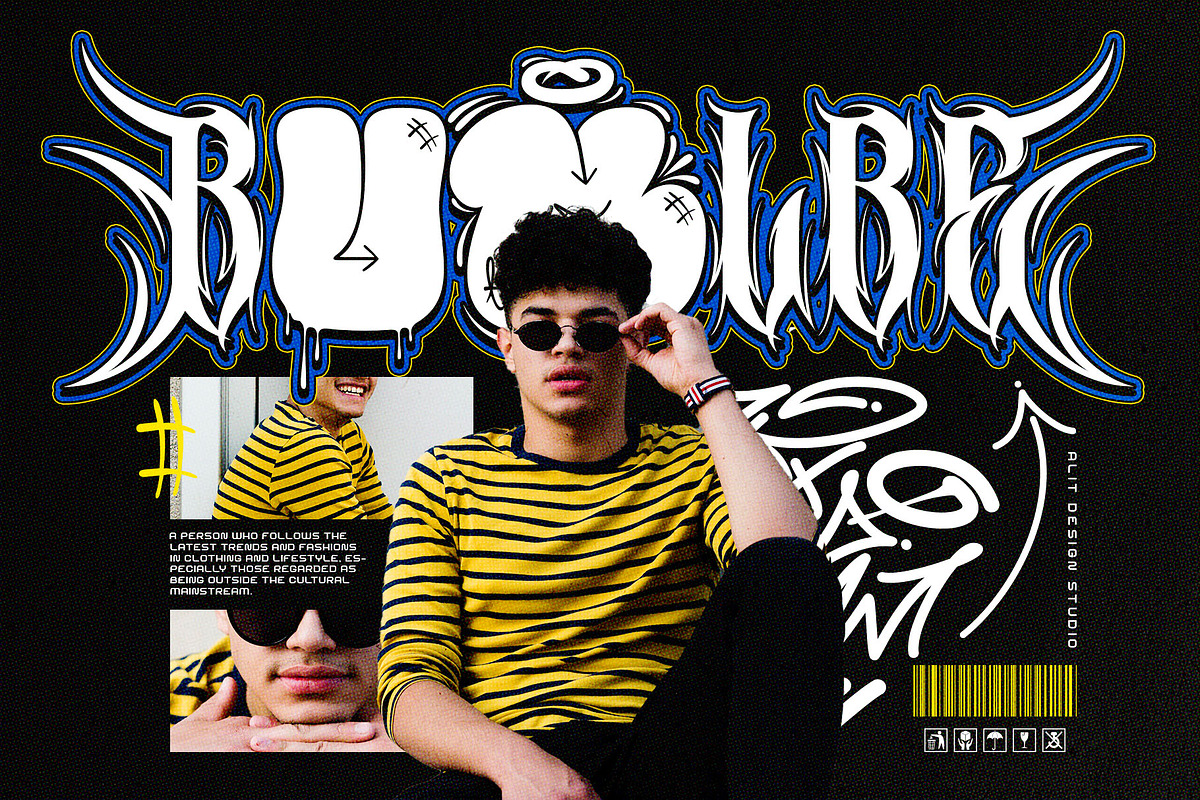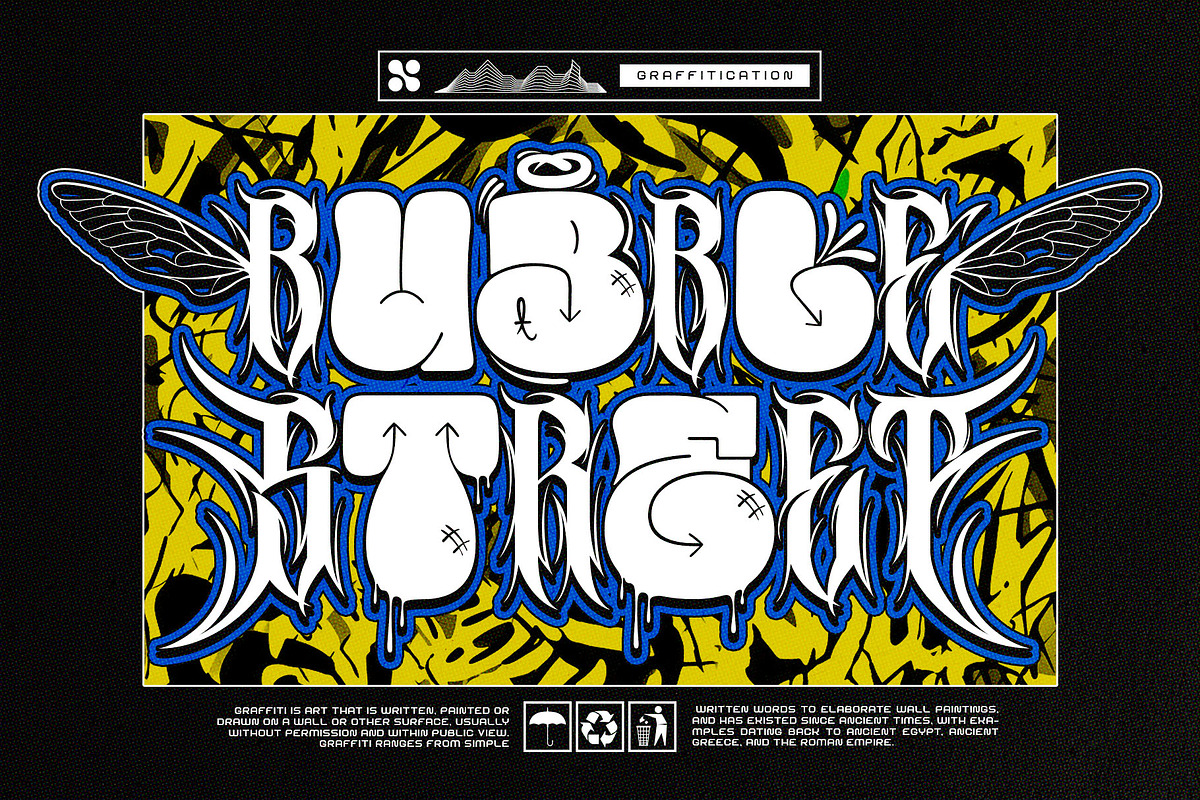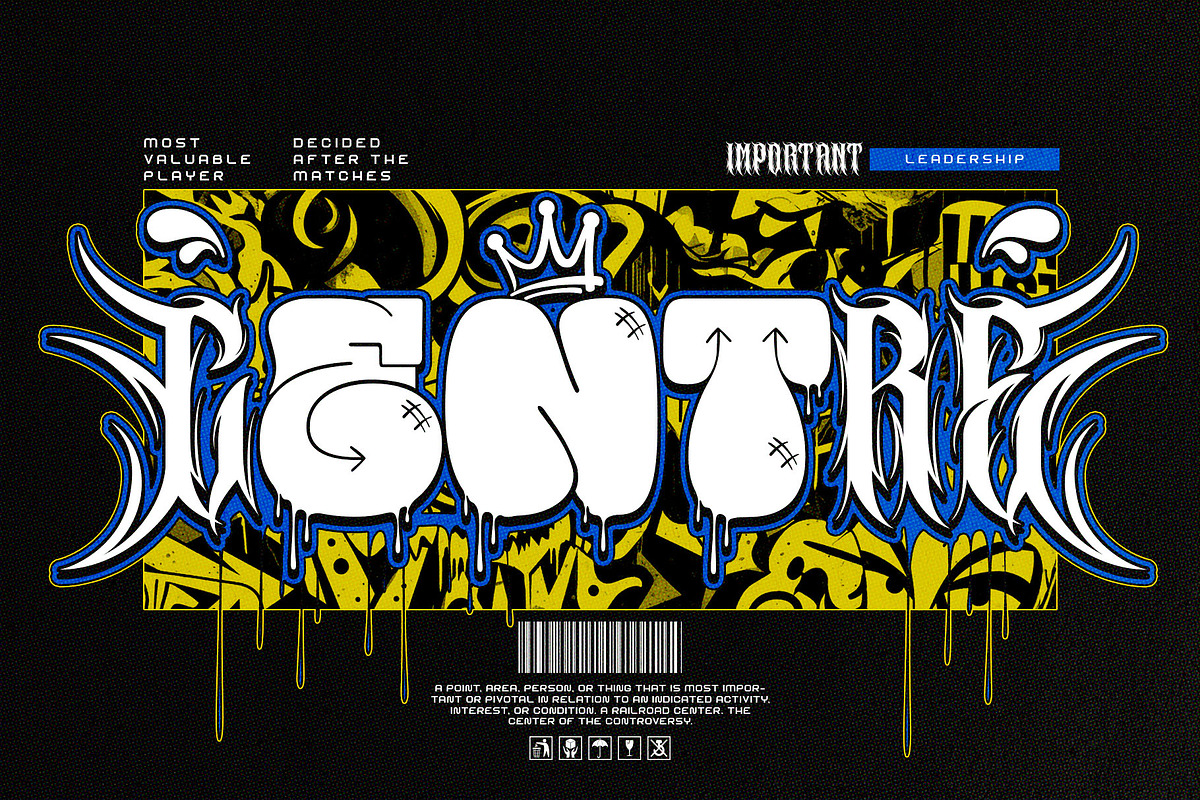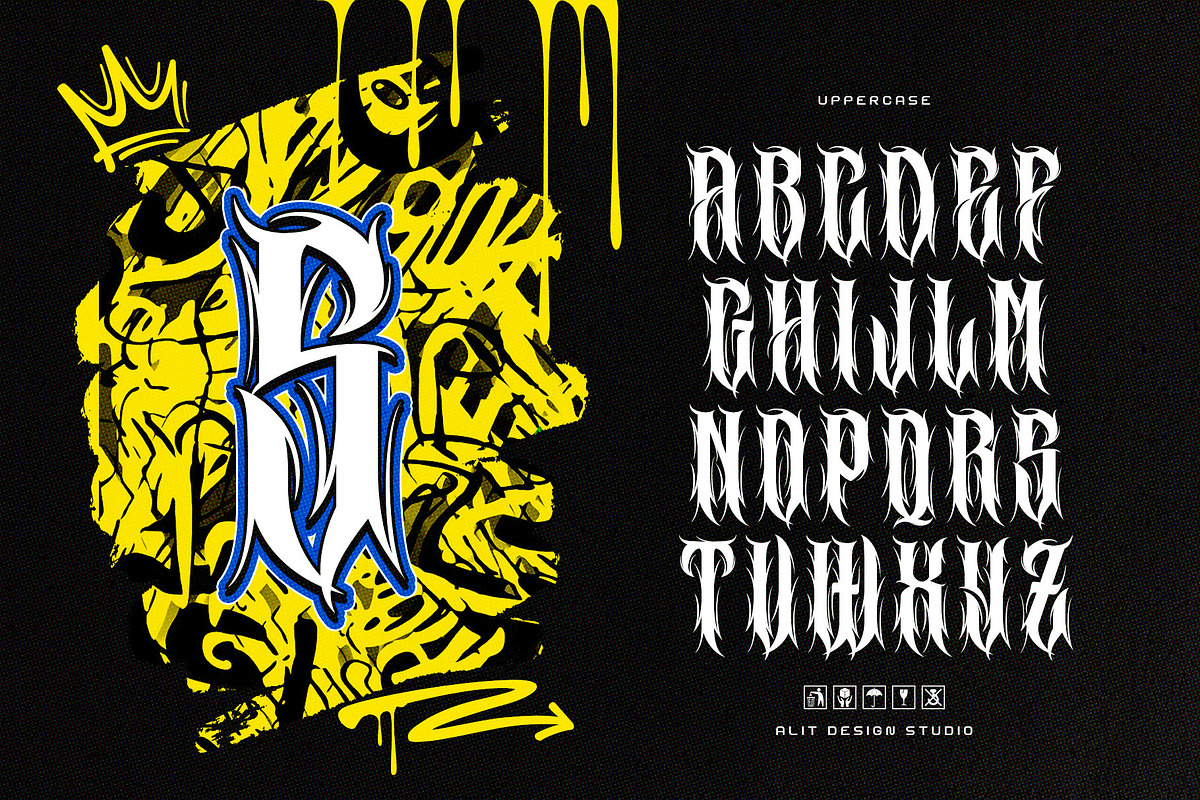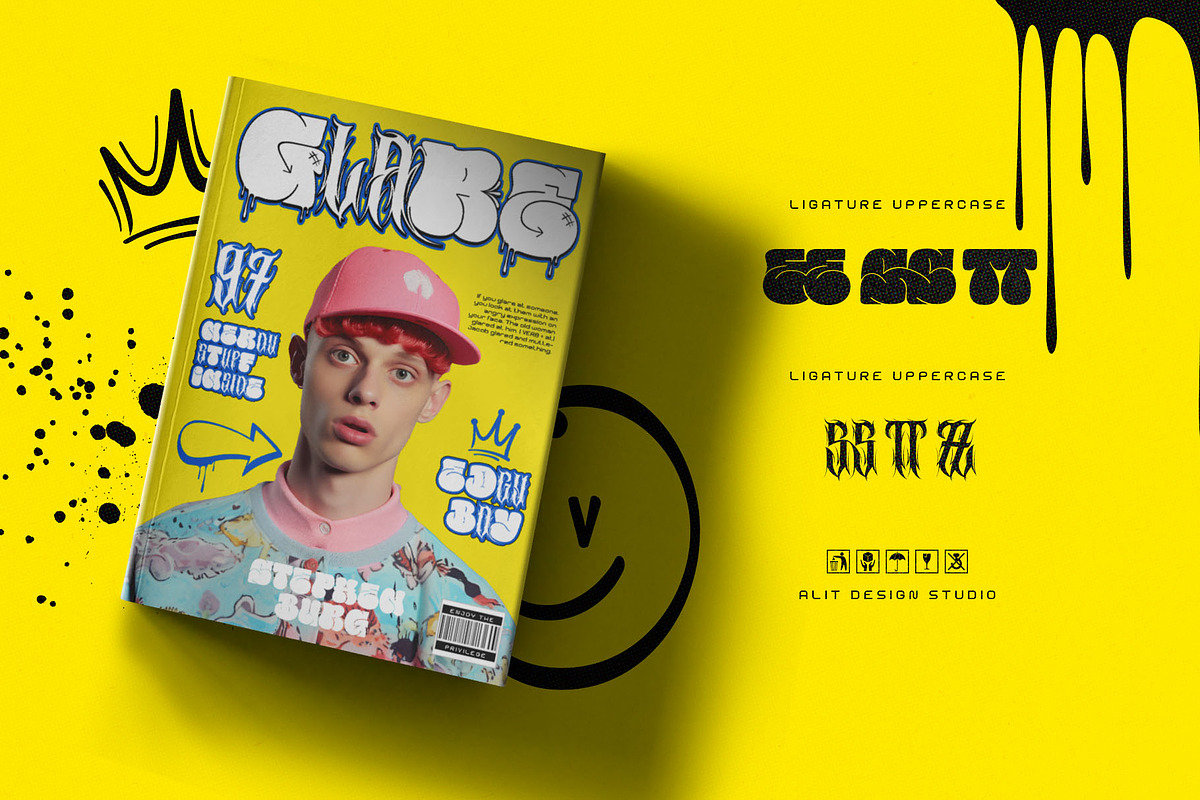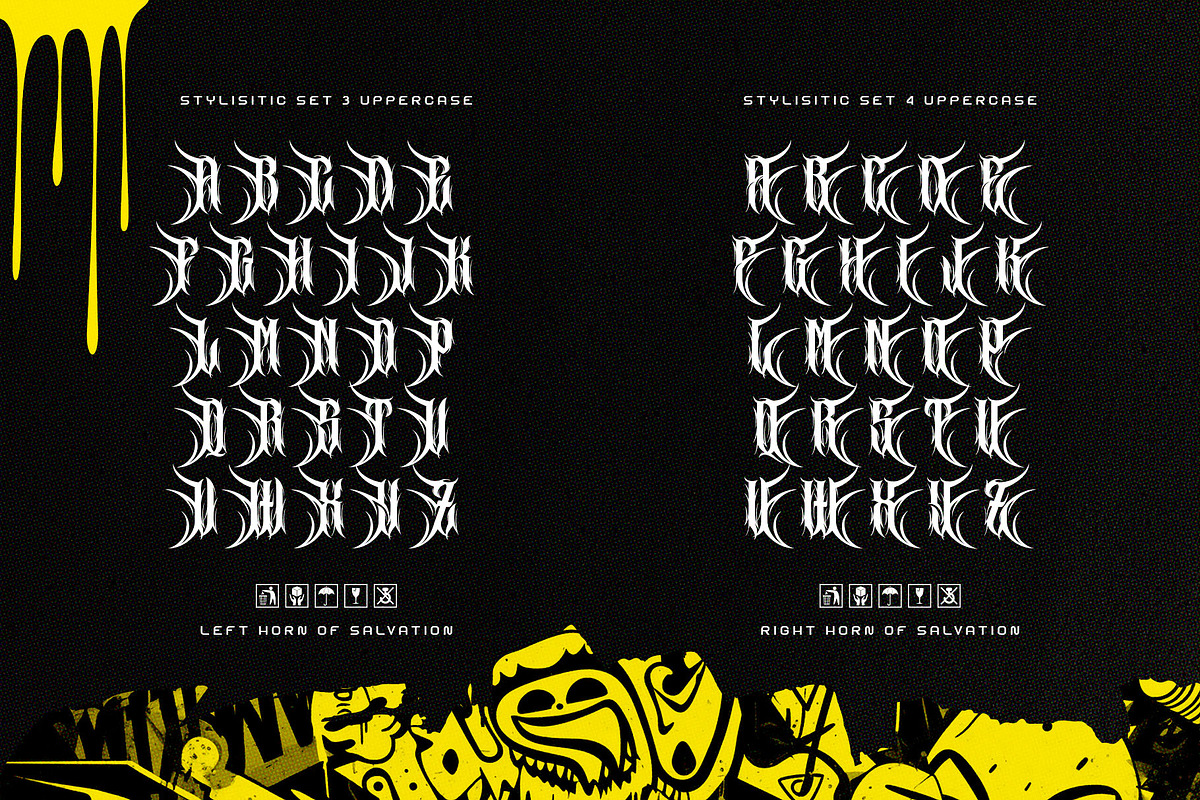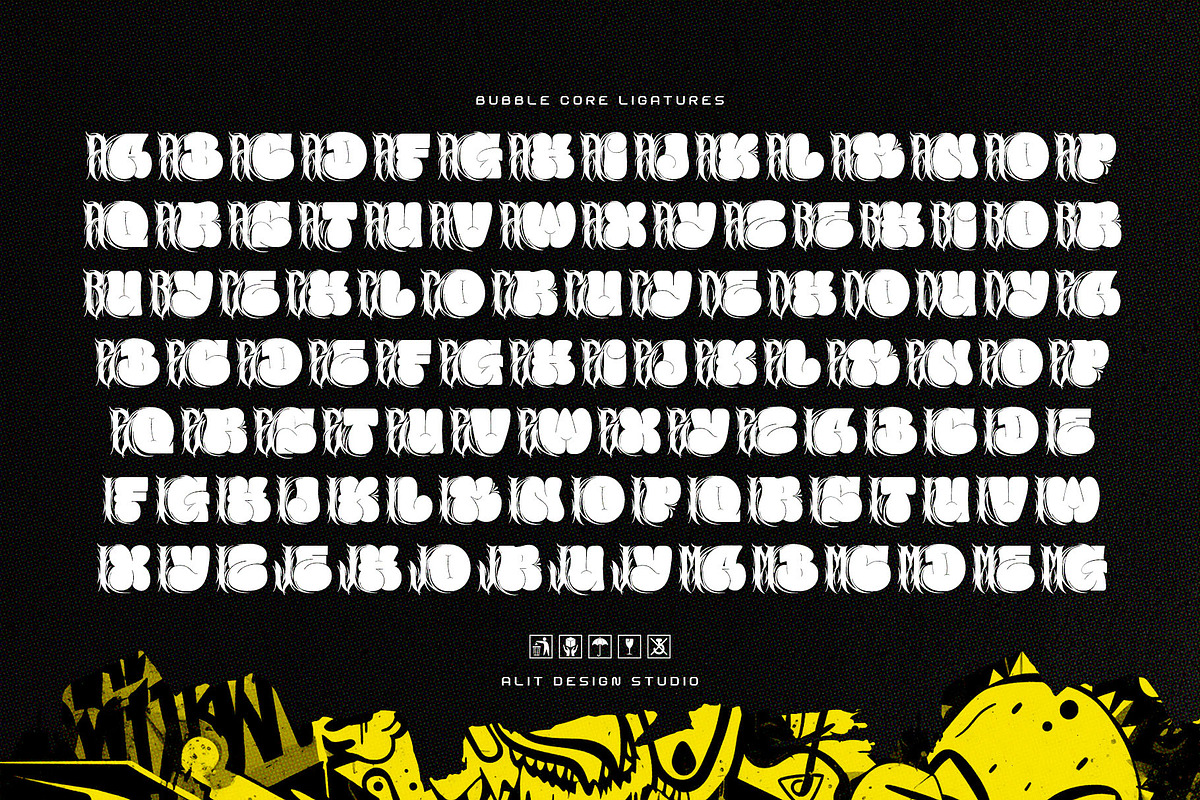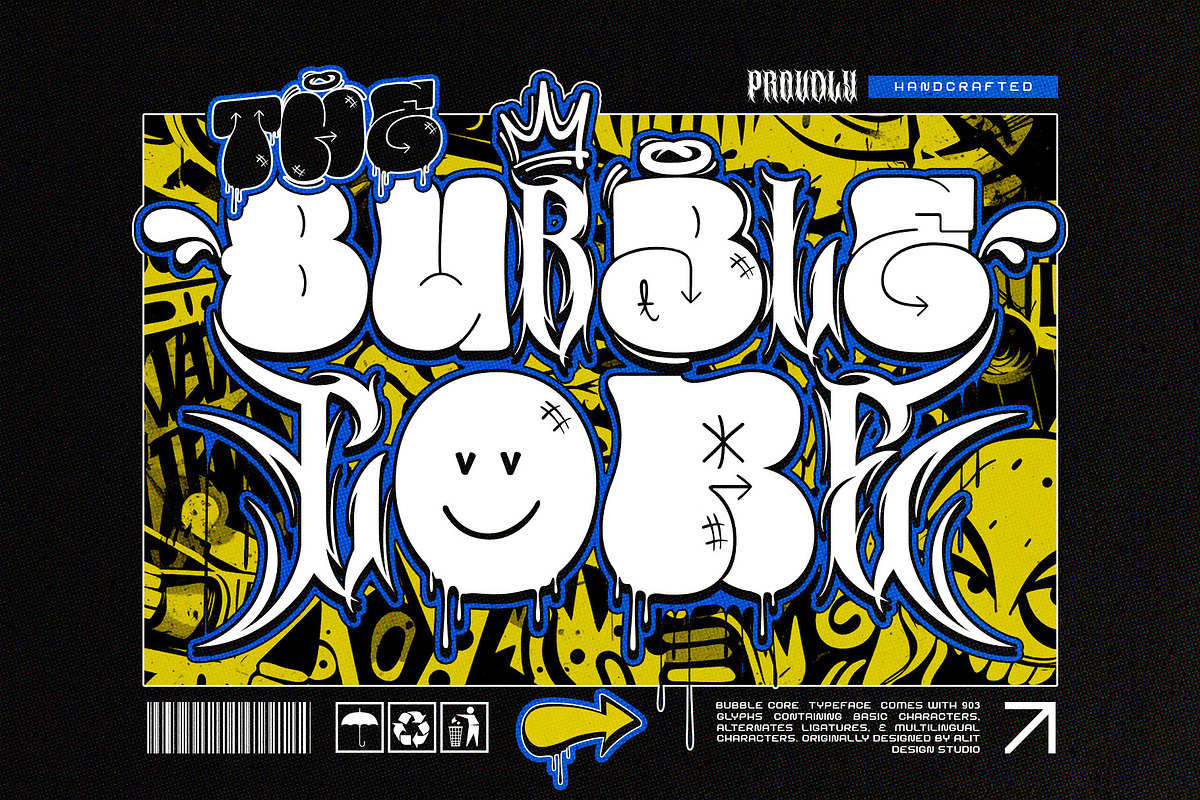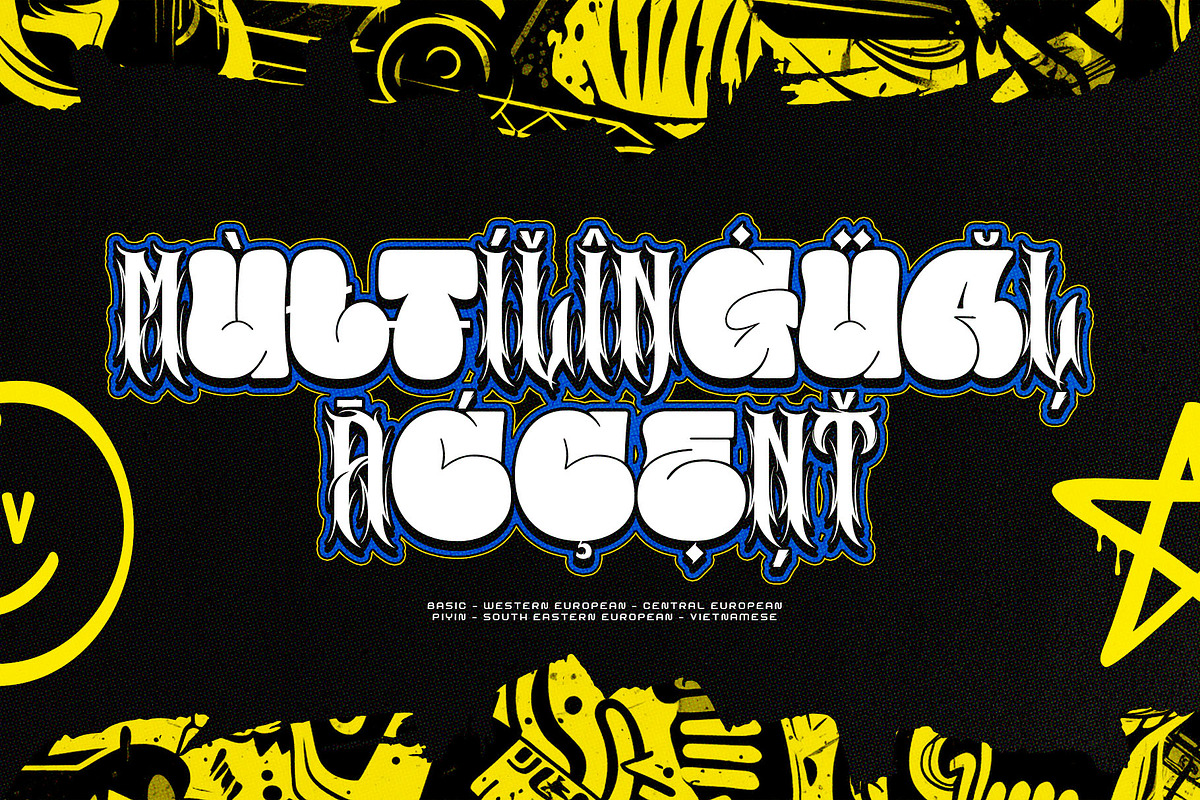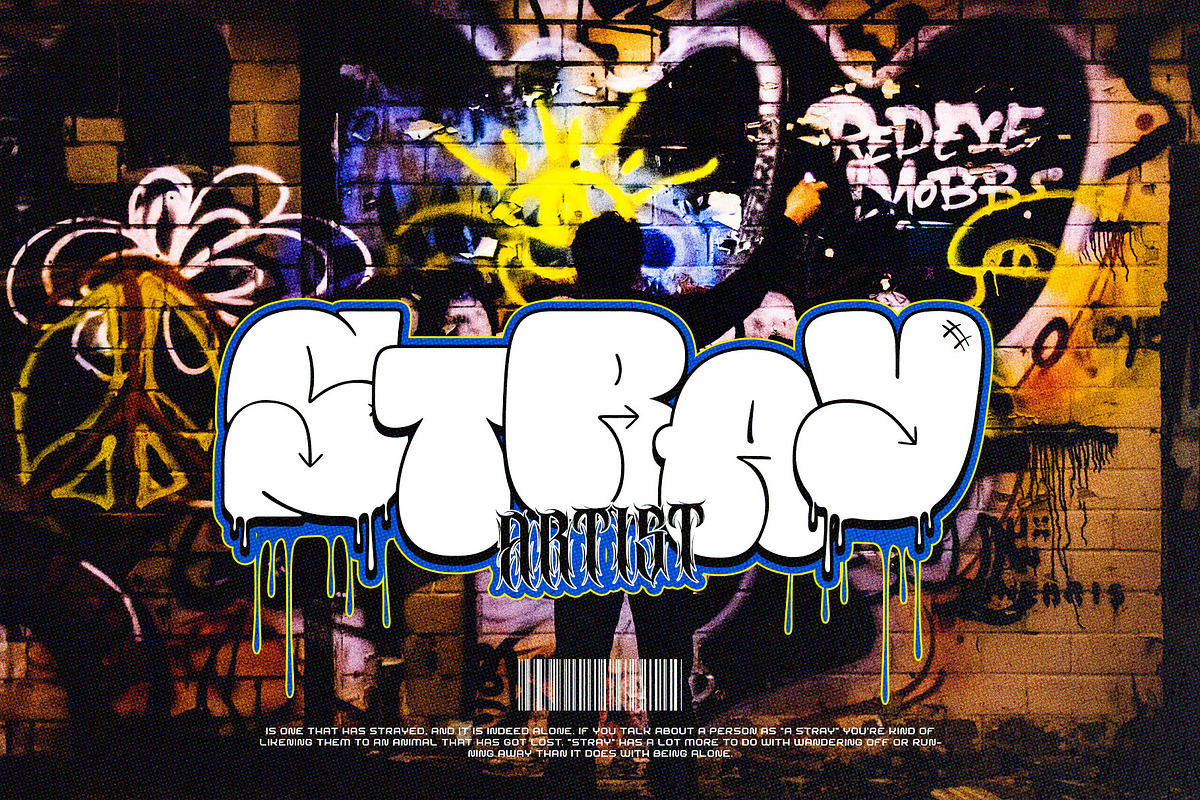
Bubble Core Graffiti Mix Metal Font
Introducing Bubble Core Graffiti Mix Metal Font, a dynamic fusion of spiked metal aesthetics and playful bubble graffiti elements. This unique font brings together the raw energy of urban graffiti with the edgy sophistication of metal typography, resulting in a versatile and captivating typeface.
903 Characters: With an extensive glyph set comprising 903 characters, this font offers a wide range of options for creative expression. From letters and numbers to symbols and punctuation marks, every element is meticulously crafted to maintain consistency and coherence.
Mix Font Concept: The blend of spiked metal styles and bubbly graffiti influences creates a visually intriguing mix font concept. Each character strikes a balance between rugged metallic edges and soft, rounded curves, adding depth and dimension to your designs.
Versatile Usage: Whether you're designing logos, posters, album covers, or digital artwork, Bubble Core Graffiti Mix Metal Font adapts effortlessly to various creative projects. Its bold and expressive nature makes it perfect for projects that demand attention and convey a sense of urban style.
Distinctive Character: Stand out from the crowd with a font that exudes character and personality. The juxtaposition of industrial metal and street art vibes gives your designs a unique edge, setting them apart in the world of typography.
Elevate your designs with the bold and dynamic presence of Bubble Core Graffiti Mix Metal Font. Explore the fusion of spiked metal and bubble graffiti styles, and unleash your creativity with this versatile and captivating typeface.